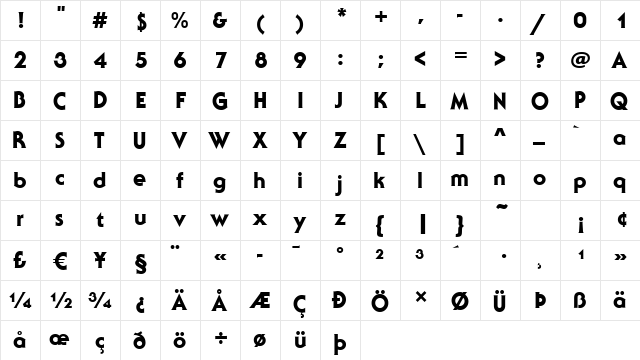
Sebastian-Heavy Regular
Design Context for Sebastian-Heavy Typeface
Sebastian-Heavy offers clean, dependable letterforms without strong stylistic allegiance, making it a practical choice for designers who need flexibility.